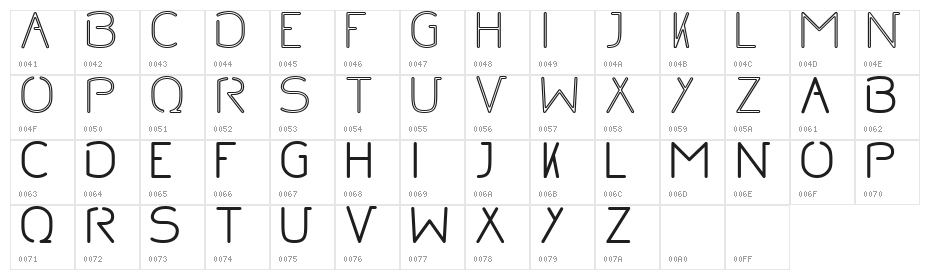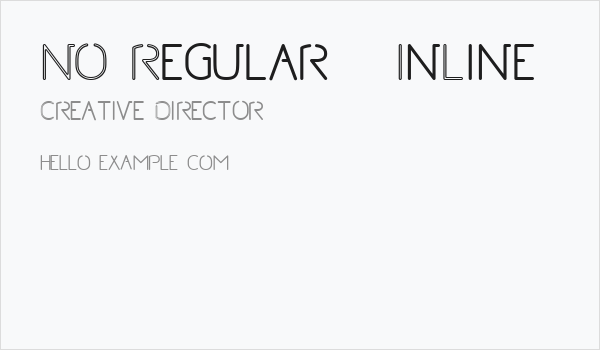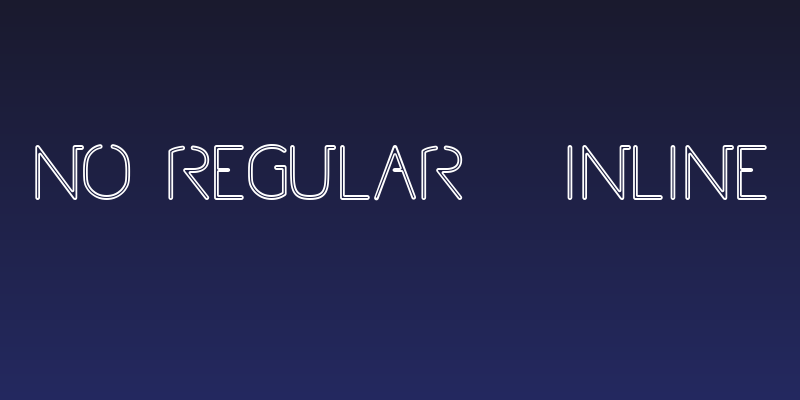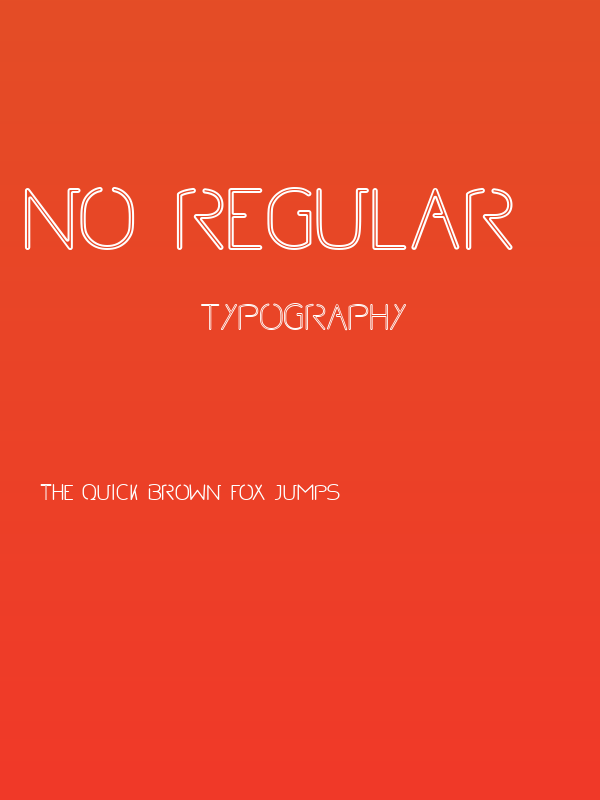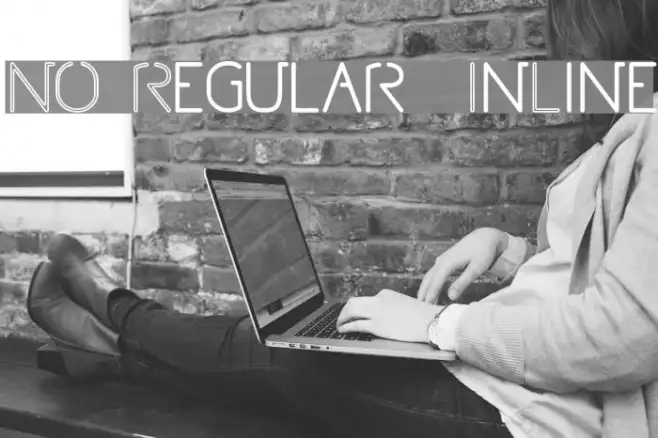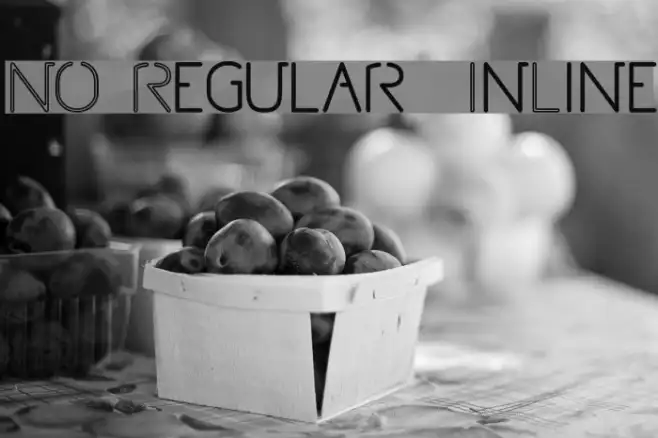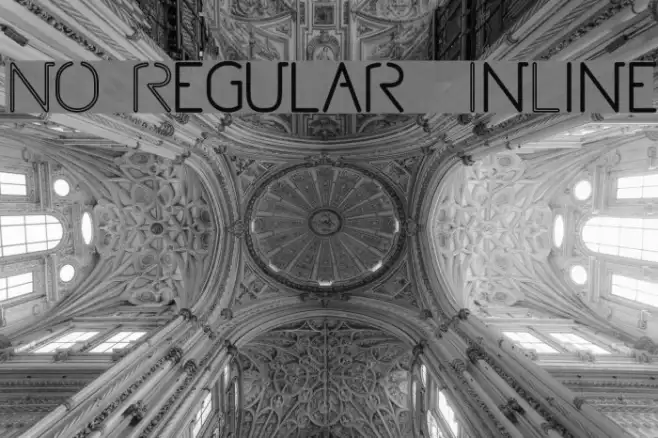
NO Regular - InLine Font
NO Regular - InLine Description
This font features a unique inline design that combines modern aesthetics with a geometric structure. The uppercase letters are characterized by clean, straight lines and rounded edges, creating a harmonious balance between sharpness and softness. The inline style adds a distinctive touch, making the characters appear both open and airy. The lowercase letters maintain the same geometric precision, ensuring consistency across the typeface. The numerals and special characters are designed with the same attention to detail, providing a cohesive look throughout. This font is ideal for projects that require a modern and stylish appearance, such as branding, advertising, and digital media.
| Proposed Projects | Ideal for branding, advertising, digital media, and contemporary design projects. |